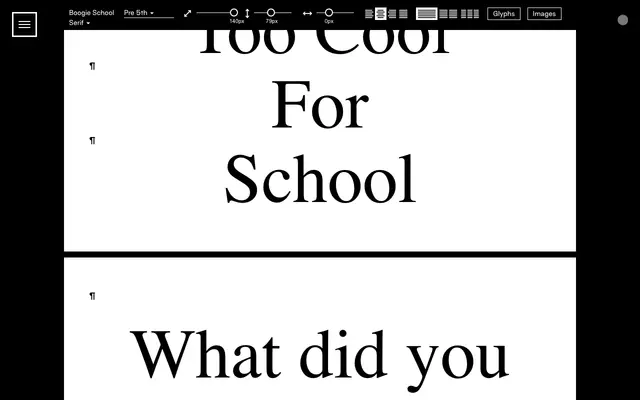
Boogie School Serif
A display serif from Or Type with a loose, informal character built around an education-themed specimen.
Boogie School Serif is a display serif with an expressive, casual personality, presented through a specimen that leans heavily into school and education imagery. The typeface carries a relaxed energy that suits editorial, poster and branding contexts where a serif with personality is needed over a workhorse text face. The specimen demonstrates strong numerals and headline settings across a range of playful copy treatments.
The typeface exhibits a playful, expressive character suited to display use, with a serif construction that carries a loose, informal quality consistent with display-oriented type design.